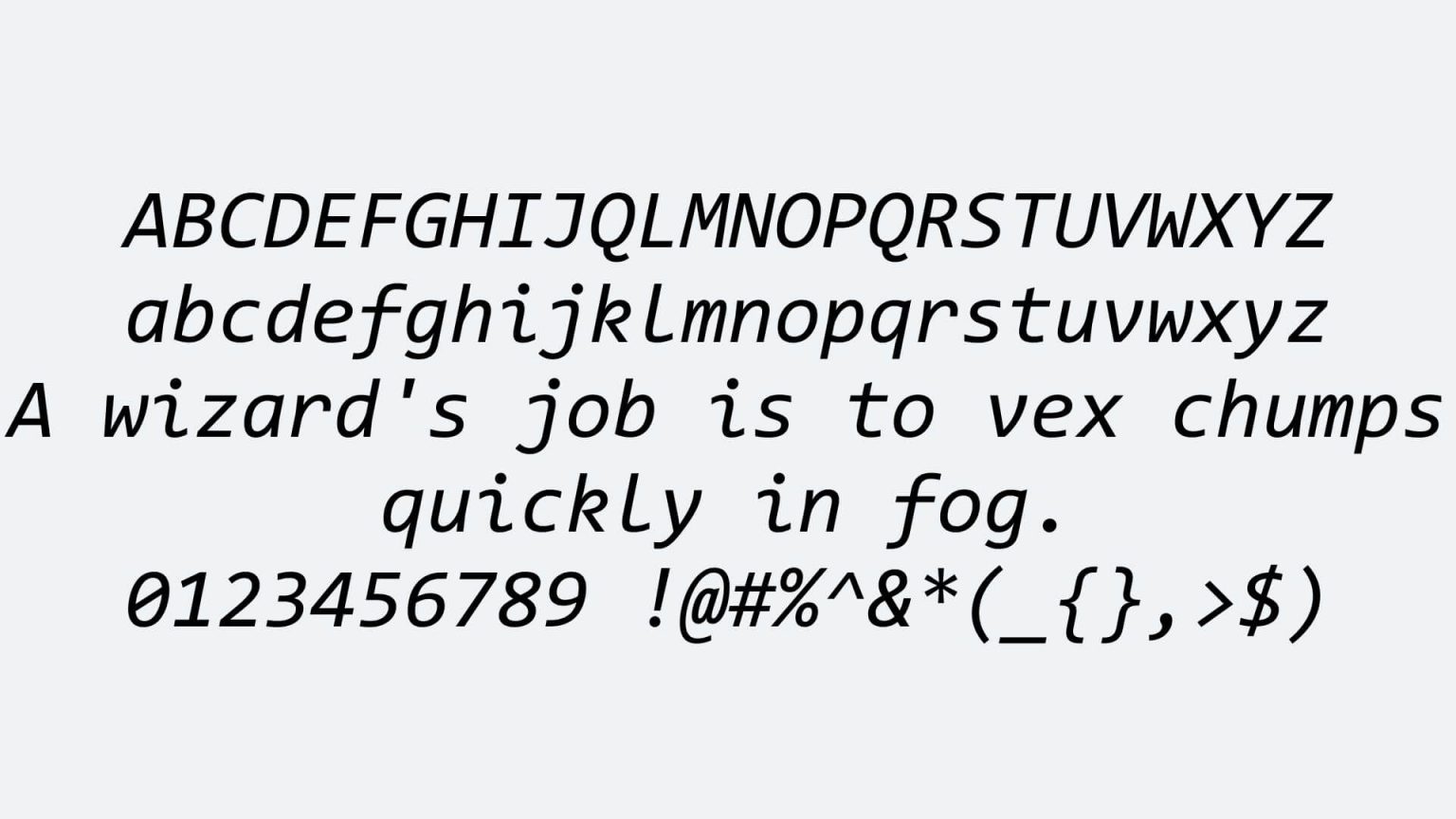
Consolas Code Font . — discover the best fonts for coding that blend readability and style. websites using the typeface consolas with personal recommendations for similar web fonts, suggested font pairings and the closest free alternative. — the default fonts are different across windows, mac, and linux. As of vscode 1.15.1, the default font settings can be found in the source code:. consolas is aimed for use in programming environments and other circumstances where a monospaced font is specified. — a decade ago, i blogged that i switched my code font from courier new to consolas. Check out our expertly curated list of the. — by default, the font used for coding in vs code is consolas. If you follow this guide, you can change most fonts in vs code, whether we’re.
— a decade ago, i blogged that i switched my code font from courier new to consolas. If you follow this guide, you can change most fonts in vs code, whether we’re. — discover the best fonts for coding that blend readability and style. websites using the typeface consolas with personal recommendations for similar web fonts, suggested font pairings and the closest free alternative. consolas is aimed for use in programming environments and other circumstances where a monospaced font is specified. — by default, the font used for coding in vs code is consolas. — the default fonts are different across windows, mac, and linux. As of vscode 1.15.1, the default font settings can be found in the source code:. Check out our expertly curated list of the.
Consolas Code Font Check out our expertly curated list of the. — by default, the font used for coding in vs code is consolas. — a decade ago, i blogged that i switched my code font from courier new to consolas. consolas is aimed for use in programming environments and other circumstances where a monospaced font is specified. — discover the best fonts for coding that blend readability and style. If you follow this guide, you can change most fonts in vs code, whether we’re. As of vscode 1.15.1, the default font settings can be found in the source code:. websites using the typeface consolas with personal recommendations for similar web fonts, suggested font pairings and the closest free alternative. — the default fonts are different across windows, mac, and linux.
FREE Consolas Font To Help You Code with Confidence HipFonts Consolas Code Font As of vscode 1.15.1, the default font settings can be found in the source code:. Check out our expertly curated list of the. — by default, the font used for coding in vs code is consolas. consolas is aimed for use in programming environments and other circumstances where a monospaced font is specified. websites using the typeface. Consolas Code Font.
The Best Free Monospace Fonts for Developers, Compared — SitePoint Consolas Code Font — discover the best fonts for coding that blend readability and style. As of vscode 1.15.1, the default font settings can be found in the source code:. — the default fonts are different across windows, mac, and linux. — a decade ago, i blogged that i switched my code font from courier new to consolas. Consolas Code Font.
Consolas Font Download For Free, View Sample Text, Rating And More On Consolas Code Font If you follow this guide, you can change most fonts in vs code, whether we’re. Check out our expertly curated list of the. websites using the typeface consolas with personal recommendations for similar web fonts, suggested font pairings and the closest free alternative. — a decade ago, i blogged that i switched my code font from courier new. Consolas Code Font.
Download free Consolas Bold font CONSOLAB.TTF Consolas Code Font — a decade ago, i blogged that i switched my code font from courier new to consolas. Check out our expertly curated list of the. If you follow this guide, you can change most fonts in vs code, whether we’re. — discover the best fonts for coding that blend readability and style. — by default, the font. Consolas Code Font.
Download free Consolas font, free Consolas.ttf Italic font for Windows Consolas Code Font — discover the best fonts for coding that blend readability and style. — a decade ago, i blogged that i switched my code font from courier new to consolas. — by default, the font used for coding in vs code is consolas. websites using the typeface consolas with personal recommendations for similar web fonts, suggested font. Consolas Code Font.